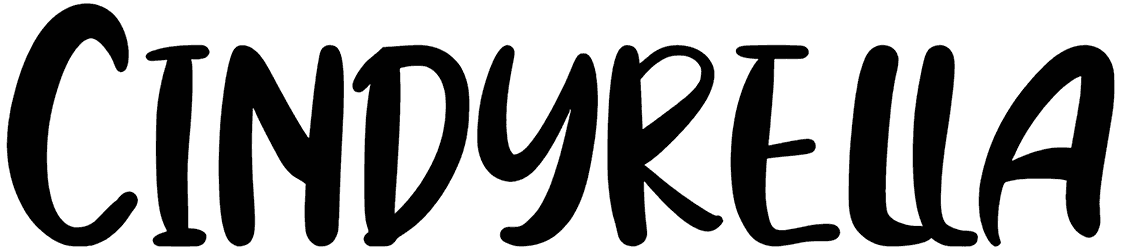
Cindyrella Font
Introducing Cindyrella, an authentic and casual Cinderella font that comes with a playful style that leads to a sense of happiness, childishness, grunge, disorder, and love. By using this all-caps typeface in book covers, branding, stationery, invitations, and greeting cards, you can take the quality of your artwork to the next level.